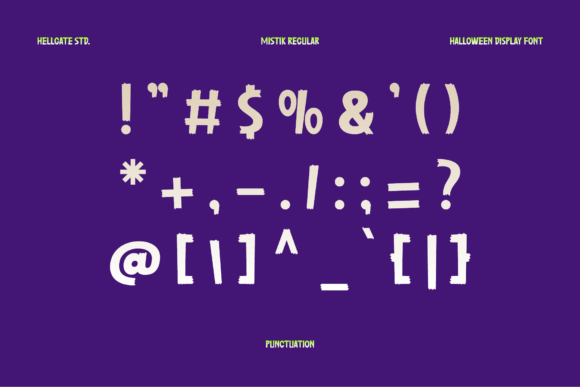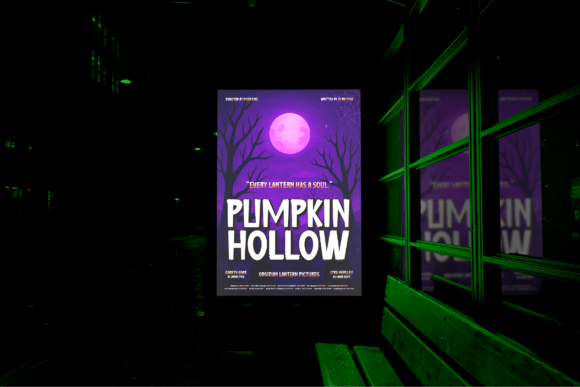
Introduction to Mistik Font
As a designer, have you ever found yourself staring at a blank canvas, searching for the perfect font to bring your creative project to life? The moment of truth arrives when you stumble upon a game-changing design resource that elevates your work to the next level. For those who dare to venture into the realm of the unknown, the Mistik Font is an enigmatic discovery waiting to be unleashed.
With its unique ability to cast a spell of mystique, this single variation font is not just a typography choice – it’s an experience. Its versatility and customizability allow you to fine-tune its eerie charm, making it an invaluable addition to your design arsenal. Whether you’re working on a Halloween-themed project or simply want to add a touch of the unknown to your design, the Mistik Font is the perfect companion to help you achieve your creative vision.
Key Features of Mistik Font
- Features a unique and stylish design, perfect for modern creative projects
Honest Review: Mistik Font
As a designer, I’m always on the lookout for high-quality design resources that can elevate my creative projects. The Mistik Font is one such resource that has caught my attention lately. ✨
One of the standout features of the Mistik Font is its versatility. The font comes in a range of styles, from modern to vintage, making it suitable for a variety of design projects. The font also boasts a transparent background, which allows it to seamlessly integrate with any design.
Here are some of the key features that I like about the Mistik Font:
- Range of styles to suit different design projects
While the Mistik Font is an excellent resource, there are a few limitations to be aware of:
- Some users may find the font to be too elaborate for simple designs
- The font may not be suitable for very small text sizes
Overall, I’m impressed with the Mistik Font. It’s a great addition to any designer’s toolkit, and its high-quality design makes it a great choice for creative projects. With its transparent background and range of styles, the Mistik Font is a versatile resource that’s sure to please even the most discerning designers.
Mistik Font
The Mistik Font is commonly used in various creative projects, including logos, branding materials, and marketing materials. Its high-quality design and versatility make it an ideal choice for designers and artists who want to create visually appealing designs.